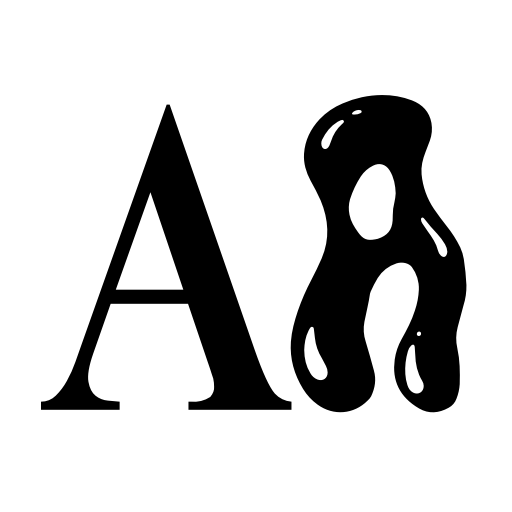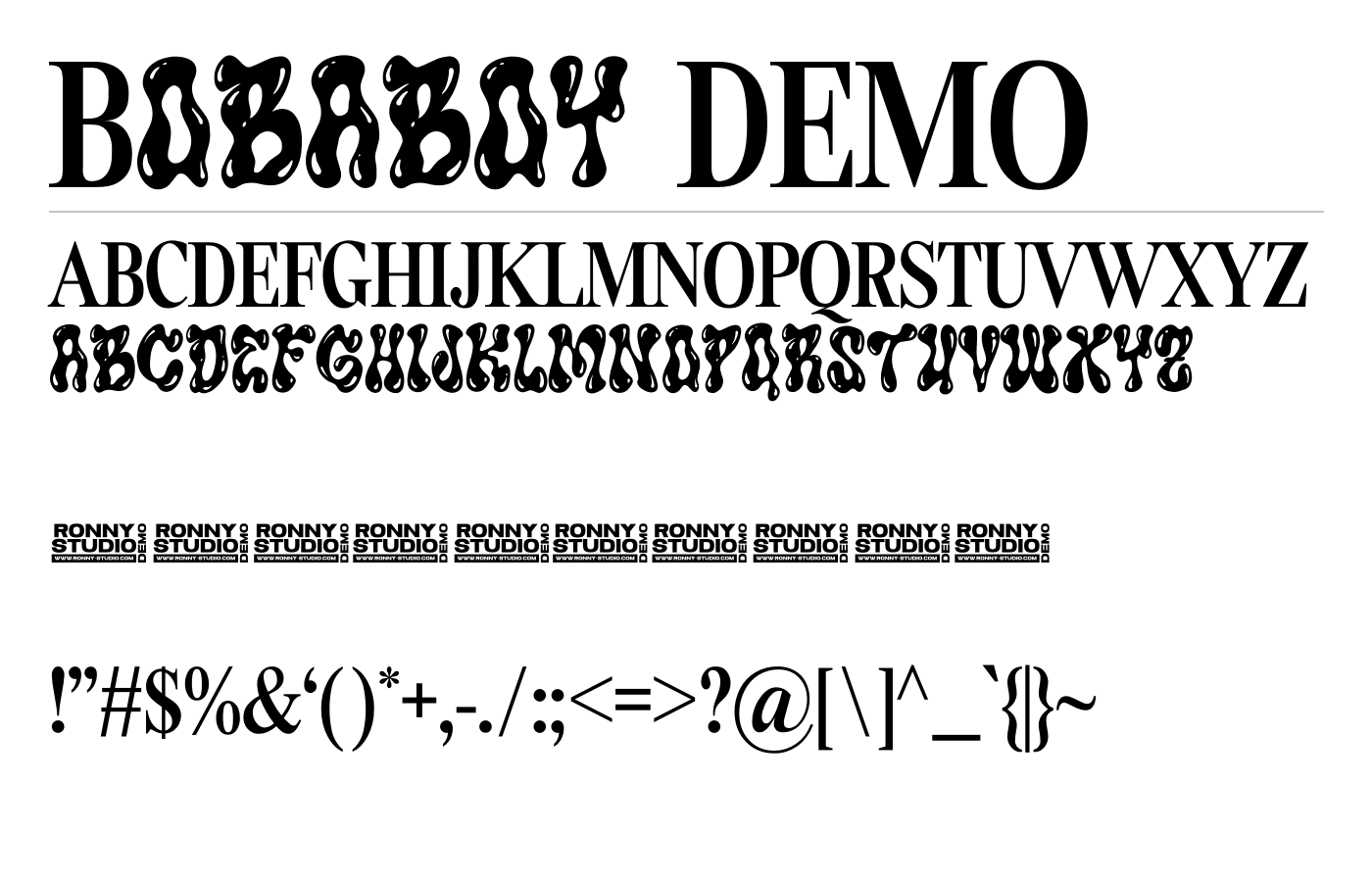
Bobaboy DEMO is a unique serif typeface combining a classic, elegant structure with an eye-catching, organic texture in its stylistic set. The font pairs a refined, high-contrast serif style with an alternative version featuring fluid, almost melting letterforms, creating a playful yet sophisticated personality. Ideal for creative headlines, branding, and editorial projects, it brings a bold, artistic flair that stands out while maintaining readable clarity.
Bobaboy DEMO Font
About Bobaboy DEMO Font